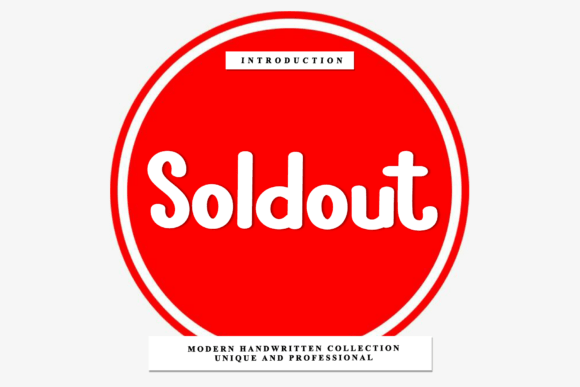
Soldout: The Script Font That Feels Like a Handwritten Note
There's a particular feeling you get when you see a logo or a piece of packaging that just feels... crafted. It's not just clean; it has soul. That’s the space Soldout occupies. This isn't your typical, overly formal calligraphy script that feels distant and untouchable. Instead, it’s a sophisticated and rhythmic script font that walks the line between elegant and approachable. Its defining feature—those sweeping, looping ascenders—gives every letter a sense of motion and personality, like the flourish of a pen in a skilled artisan's hand.
Think of it as the typographic equivalent of a warm, handwritten note from a friend who has impeccable taste. It carries the organic warmth of a handwritten font but with the refined structure and consistency of a professionally designed premium font. This balance is what makes Soldout so versatile. It doesn’t scream for attention with gimmicks; it draws you in with its confident, artisanal artistry. The overall appeal is one of customized luxury—it feels personal, considered, and intentionally crafted, which is a powerful tool in any creative's toolkit.
Where Soldout Truly Shines: From Shelf to Screen
Choosing the right display font is about matching personality to purpose. Soldout’s character makes it a natural fit for projects that need to convey authenticity, quality, and a touch of bespoke charm. Its strongest applications are in packaging design and brand identity for small businesses, especially in the artisanal space. Imagine it on a label for small-batch coffee, a boutique candle company, or a local bakery's menu. It instantly communicates care and craftsmanship.
Beyond physical products, it’s a powerhouse for editorial design and logo design. Use it for magazine mastheads, chapter titles in a cookbook, or the hero text on a website landing page. In the digital realm, it brings personality to social media graphics, especially for Instagram stories, Pinterest pins, or quotes that need to feel inspirational and human. For entrepreneurs and small business owners, it’s a creative font that can help establish a recognizable and relatable brand identity from day one. It works beautifully for wedding stationery, event invitations, and any personal project where you want to inject a layer of handmade sophistication.
The Practical Side: Using Soldout Effectively
While Soldout is visually striking, using any script font effectively requires some strategic thinking. Its primary role is as a headline or accent font. The looping details that make it beautiful can reduce readability in long paragraphs. Think of it as the star of the show, supported by a reliable cast. This is where font pairing becomes critical. Partner Soldout with a clean, simple sans serif font for body text or subheadings. The contrast allows the script’s personality to pop without overwhelming the reader. For example, pairing it with a geometric sans serif creates a modern yet warm feel, while a humanist sans serif can amplify its organic quality.
Building Visual Hierarchy and Brand Recognition
A font like Soldout does more than just spell words; it shapes perception. Using it strategically in your visual hierarchy guides the viewer’s eye and communicates importance. A headline set in Soldout immediately tells the reader where to look first and sets the emotional tone for the entire piece. This is fundamental in both web design and print layouts.
Consistency in typography is a cornerstone of strong brand identity. When you select Soldout as part of your core design assets, you’re making a decision that influences every touchpoint. It can make your brand feel more professional and recognizable. Over time, your audience will start to associate that specific, elegant script with your business—whether they see it on a product, an email newsletter, or a social media post. This builds a subtle but powerful connection. The goal isn’t just to be seen, but to be remembered, and the right typeface is a key part of that memory.
A Final Thought on Selection
Choosing a typeface is ultimately a design decision rooted in empathy for your audience. Does the font’s personality align with the message you want to send and the people you want to reach? For projects that aim to feel heartfelt, upscale, and creatively vibrant, Soldout offers a compelling answer. It’s a tool that can help bridge the gap between a digital interface and a human touch, making it a valuable addition to any designer’s or creator’s font library. The best modern typography choices feel inevitable, and for the right project, Soldout can feel exactly like that.